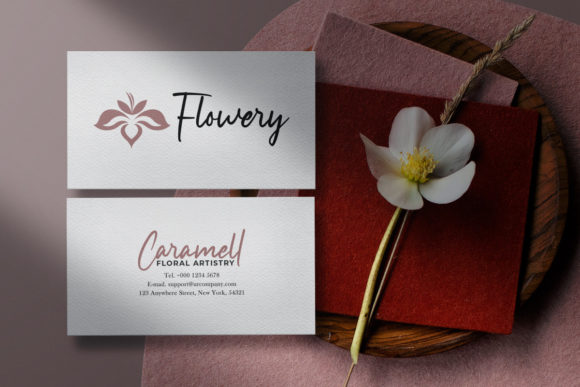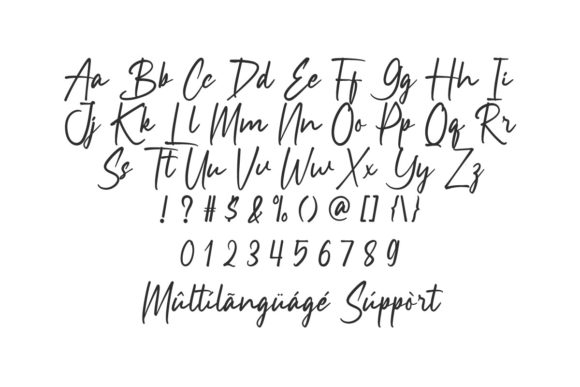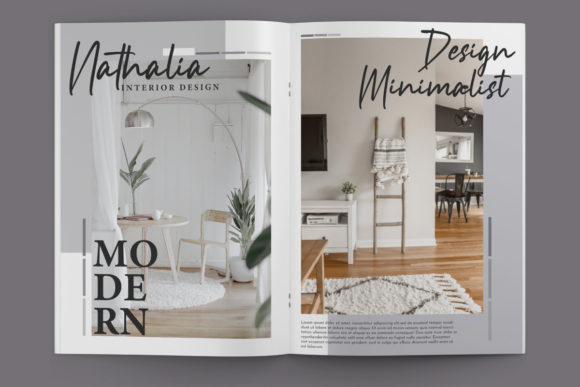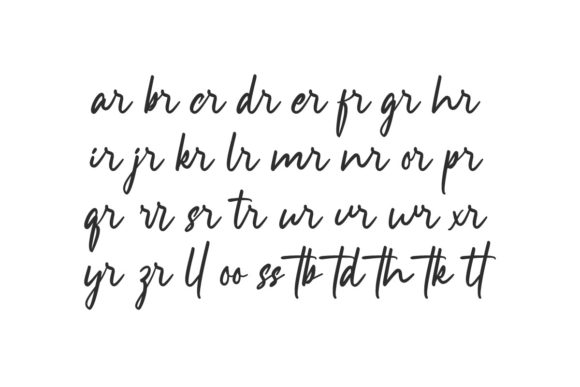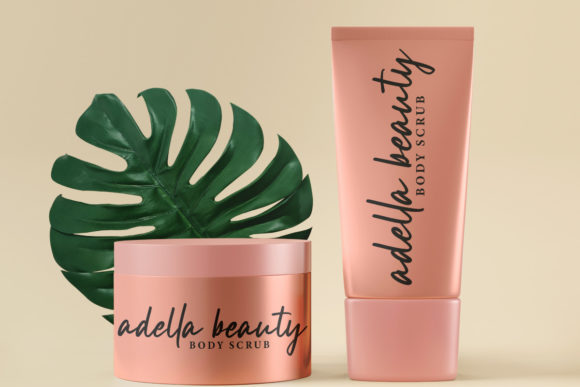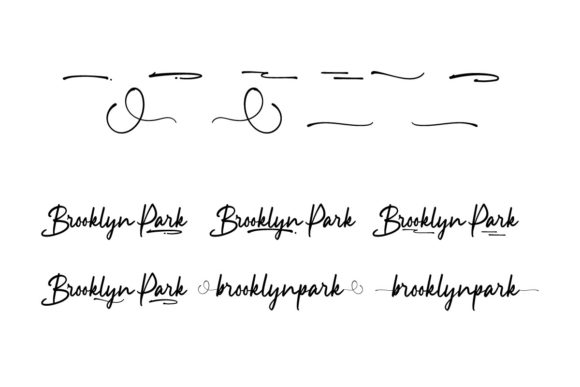
Discover the Charm of Brooklyn Park Font: A Timeless Handwritten Delight
In the world of typography, few fonts manage to capture the essence of elegance and charm as effectively as the Brooklyn Park font. This lovely and timeless handwritten font has been making waves among designers and crafters alike, and for good reason. Its unique blend of classic appeal and modern versatility makes it an excellent choice for a wide range of creative projects, from eye-catching logos and branding materials to inspiring quotes and more.
The Characteristics of Brooklyn Park Font
Brooklyn Park font is distinguished by its beautiful, handcrafted aesthetic. Each letter is carefully designed to exude a sense of warmth and personality, making it perfect for projects that require a personal touch. Whether you’re looking to create a logo that stands out, craft a brand identity that resonates with your audience, or simply add a decorative element to your design, Brooklyn Park font is up to the task.
One of the key features that sets Brooklyn Park font apart is its PUA (Private Use Area) encoding. This means that the font includes a comprehensive range of glyphs and swashes, easily accessible to users. This feature not only enhances the font’s versatility but also gives designers the flexibility to experiment with different styles and effects, ensuring their creations are truly unique.
Applications of Brooklyn Park Font
The applications of Brooklyn Park font are vast and varied. Here are a few ways designers and crafters can make the most of this exceptional font:
- Logo Design: Create memorable and impactful logos that capture the essence of your brand. Brooklyn Park font’s distinctive handwritten style ensures that your logo will stand out from the crowd.
- Branding: Consistency is key in branding, and Brooklyn Park font helps you maintain a cohesive visual identity across all your materials, from business cards to packaging.
- Quotes and Typography: Add a touch of elegance to your quotes and typographic designs. Brooklyn Park font’s beautiful letters make it easy to craft visually stunning pieces that inspire and engage.
- Stationery and Invitations: Elevate your stationery and invitations with a font that exudes charm and sophistication. Perfect for weddings, parties, and formal events.
- Digital Content: In the digital realm, font choice can significantly impact user experience. Use Brooklyn Park font in your website designs, social media graphics, and marketing materials to add a personal and approachable feel.
Why Choose Brooklyn Park Font?
With so many fonts available to designers today, what makes Brooklyn Park font a standout choice? Here are a few compelling reasons:
- Timeless Appeal: Unlike trend-specific fonts that may quickly become outdated, Brooklyn Park font boasts a timeless quality that ensures your designs remain stylish for years to come.
- Versatility: Whether your project requires a formal, elegant look or a more casual, friendly vibe, Brooklyn Park font adapts beautifully to meet your needs.
- Easy to Use: Thanks to its PUA encoding, working with Brooklyn Park font is straightforward. Access a wide range of glyphs and swashes without needing additional software or complicated workarounds.
- Support for Creative Freedom: With Brooklyn Park font, you have the freedom to experiment and push the boundaries of your design. Its extensive features empower you to bring your creative vision to life.
Brooklyn Park font is more than just a typeface; it’s a tool for creativity, a means to add personality and charm to your designs. Its timeless handwritten aesthetic, combined with practical features like PUA encoding, makes it an invaluable asset for designers and crafters looking to make a lasting impression. Whether you’re creating logos, branding materials, quotes, or any other type of design, Brooklyn Park font is an excellent choice that promises to elevate your work to new heights.